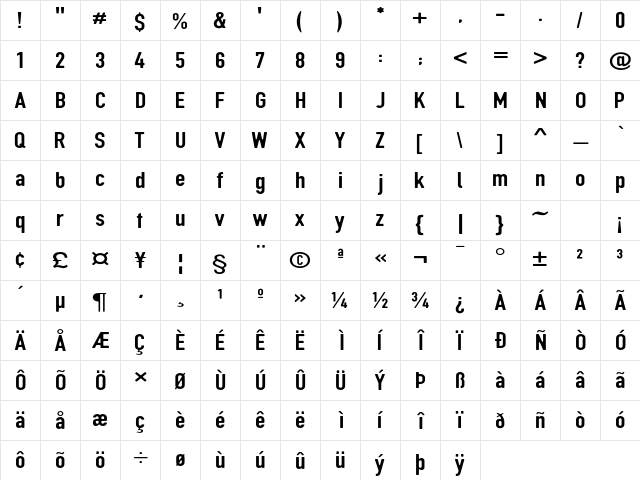
DIN Rundschrift Breit
Design Context for DIN Rundschrift Typeface
DIN Rundschrift offers clean, dependable letterforms without strong stylistic allegiance, making it a practical choice for designers who need flexibility.
Pro Tip: Pair DIN Rundschrift with a font of contrasting weight or personality to build a more expressive typographic hierarchy.